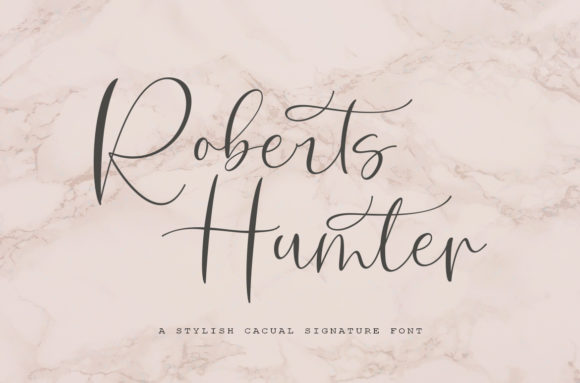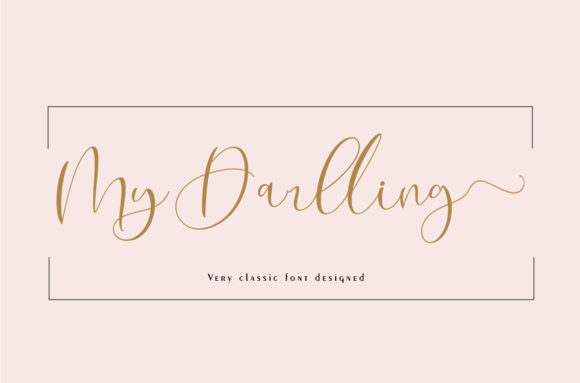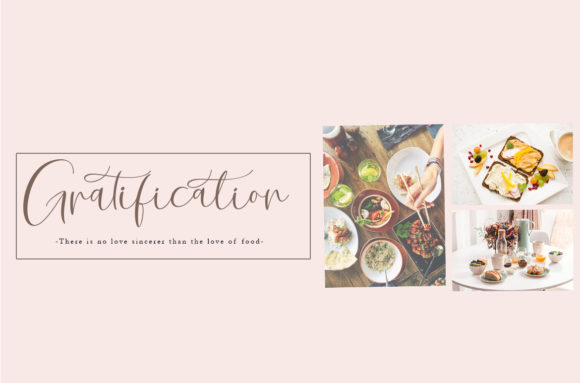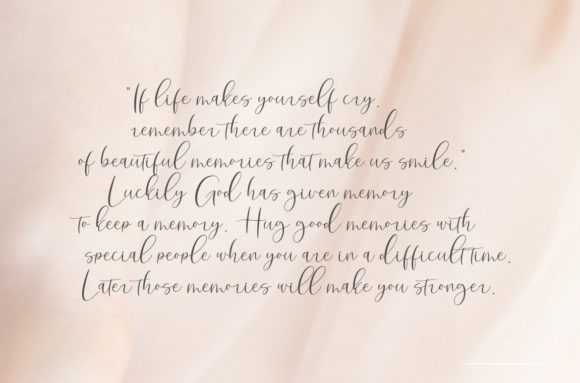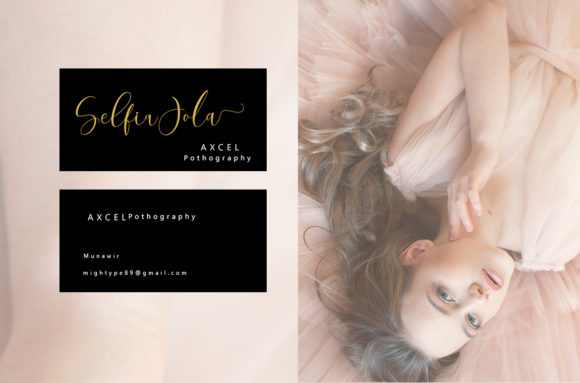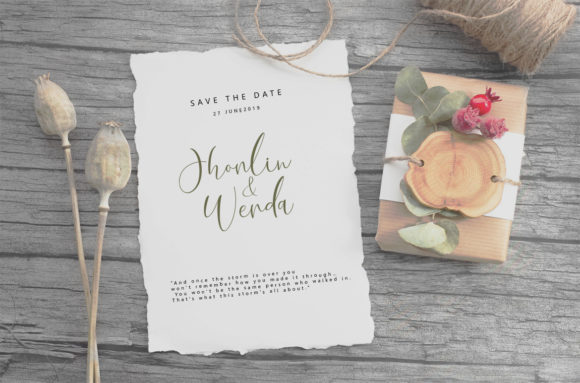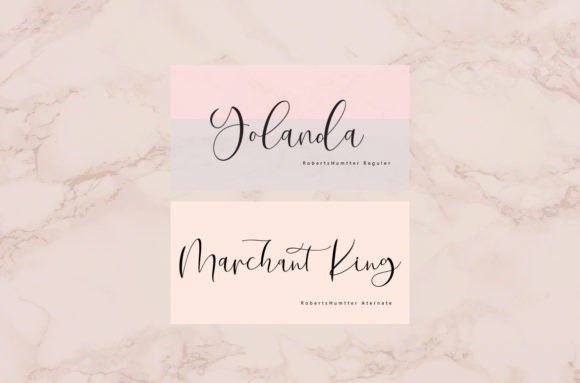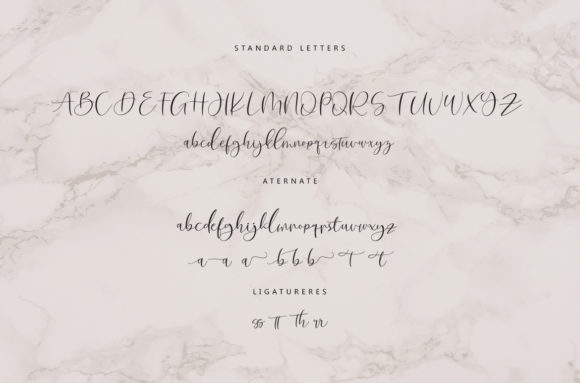
Roberts Hunter Font
About Roberts Hunter Font
Roberts Hunter is a modern calligraphy font featuring natural handwriting style. Great for a variety of design projects!